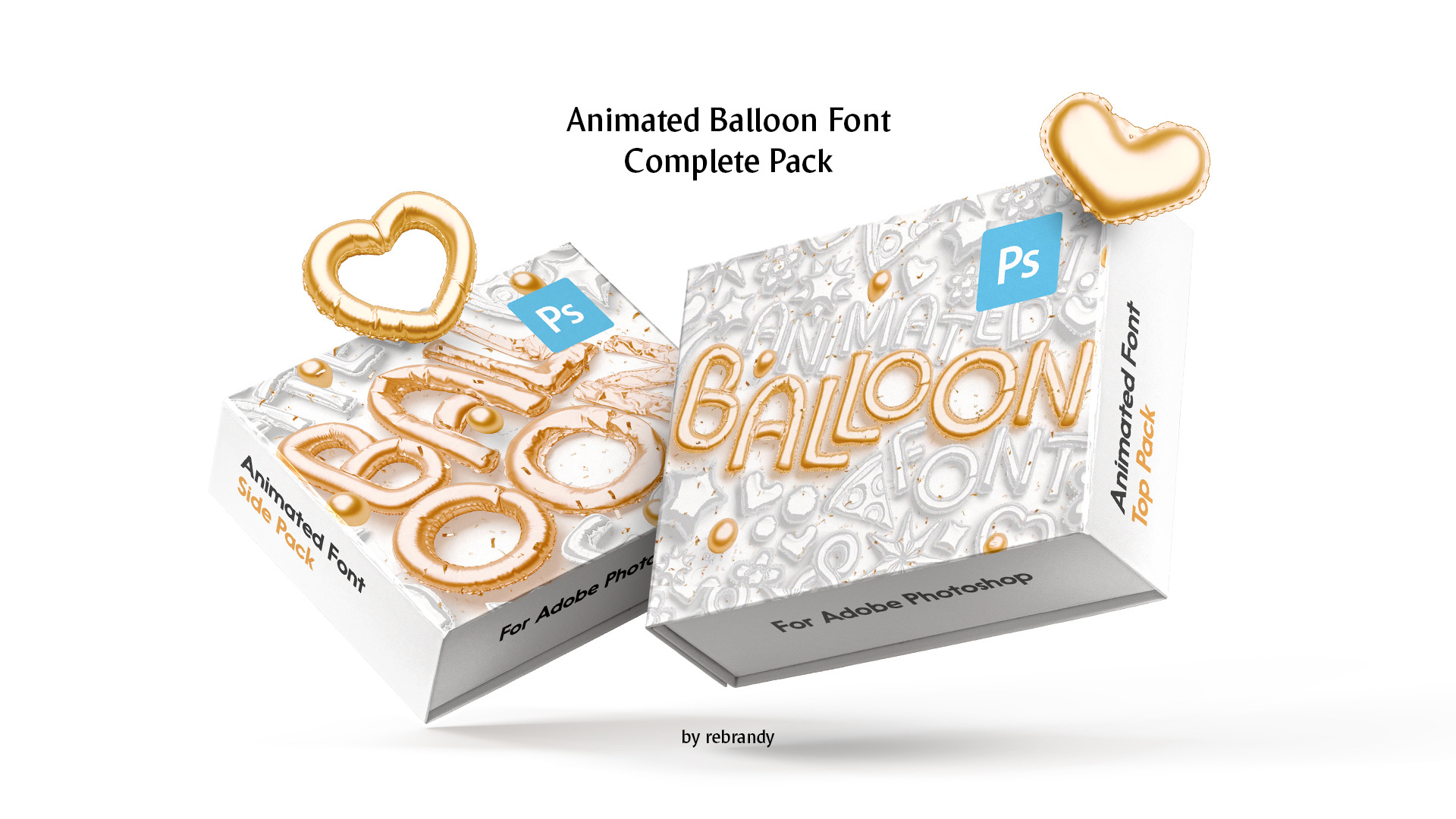
Create stunning inflatable lettering animations, customize colors, add confetti and balloons and amaze everybody with you festive design ideas!
- 52 inflatable capital letters (psd & png displayed in side and top view);
- 52 lowercase letters (side and top view);
- 20 numbers (side and top view);
- 84 special symbols (side and top view);
- 10 floating balloons (side and top view);
- confetti (lying and falling);
- 16 background textures (side and top view);
Editable elements:
- symbols matte & glossiness
- symbols colors;
- symbols animation;
- decorations color;
- background color and design;
Animation types:
- inflation and deflation;
- balloon floating;
- confetti falling;